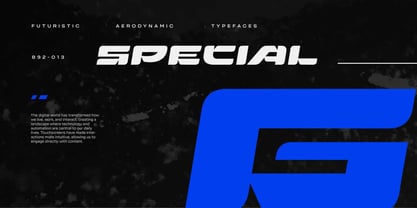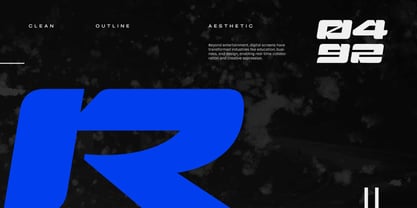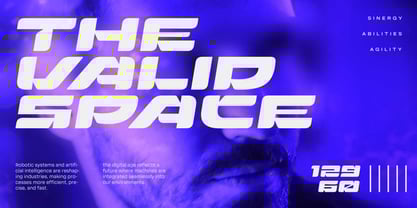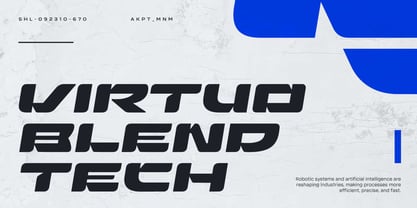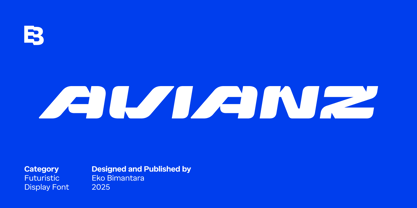
Avianz
by Eko Bimantara
The Avianz Font Family was designed by Eko Bimantara and published by Eko Bimantara. Avianz contains 1 styles.
Avianz is a wide, futuristic display font designed with a clean, bold, and neat aesthetic, making it perfect for high-end digital and technology-themed projects. Its sleek and modern design fits themes such as corporate, airplane, enterprise, and contemporary design. Ideal for display, large sizes, titles, headers, websites, brand identities, product packaging, and various graphic design purposes, Avianz brings a futuristic, professional touch to any project requiring a striking and functional visual impact.
Eko Bimantara is a type designer from Indonesia. Always has an intention to creating fonts that not only look great but also perform across a wide range of mediums and also across wide range of theme. The goal is to give designers the tools to make their projects that speaks a lot with various expression. Eko Bimantara’s fonts are featured in everything from corporate identities to street art posters, and have numerous ideas and concept ready to expand for fresh fonts for years further.